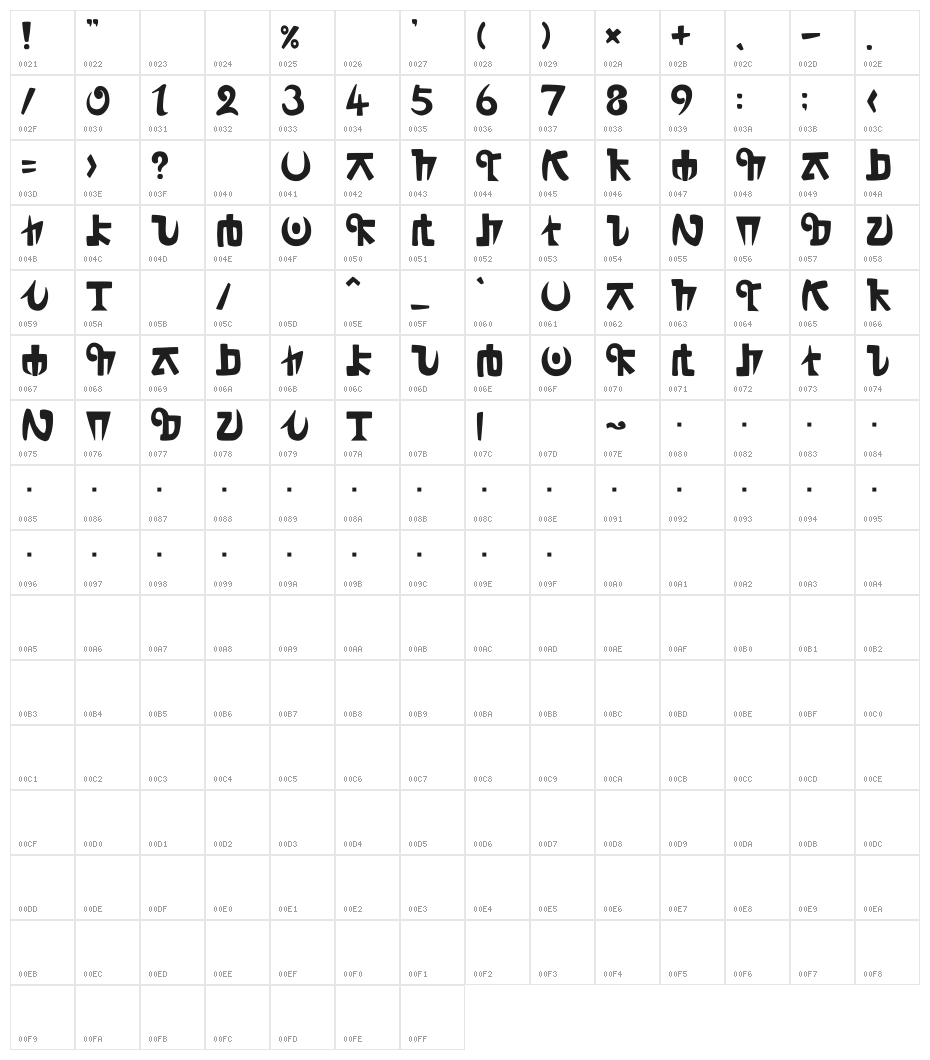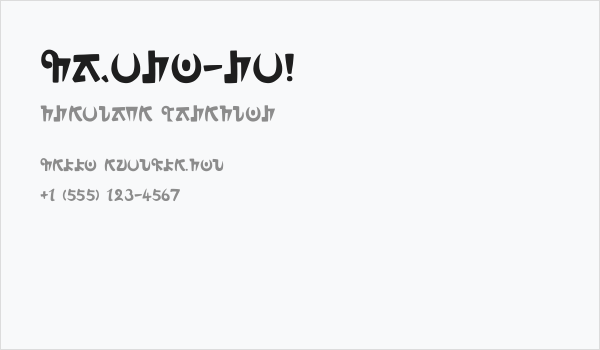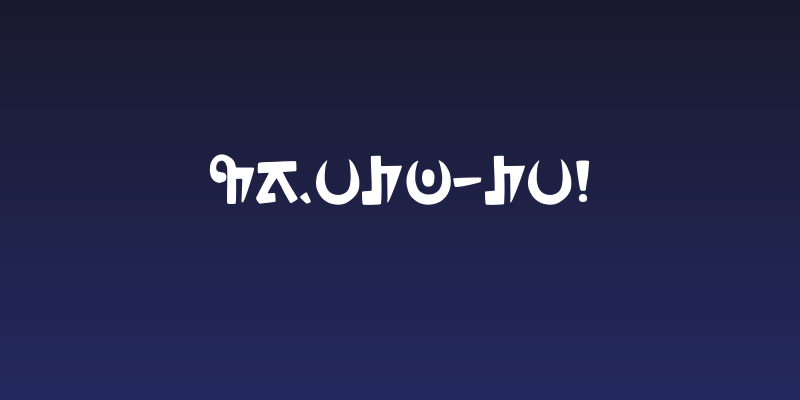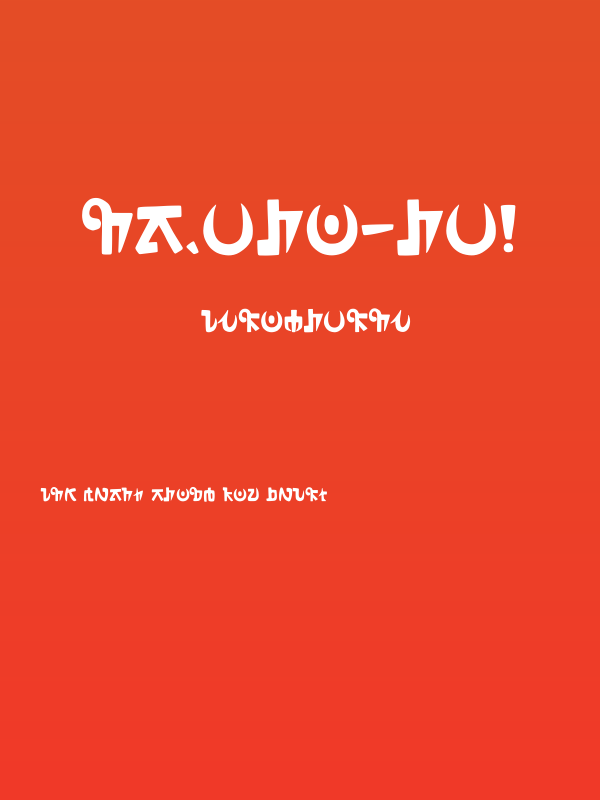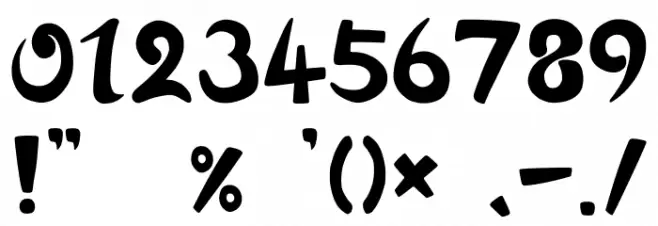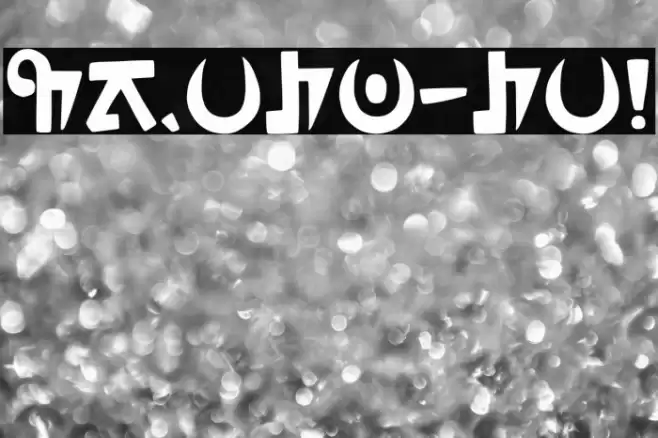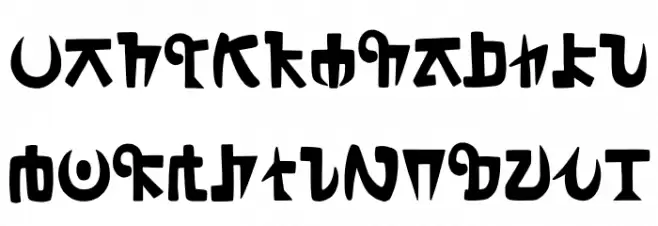
Hi,Aro-ra! Font
Hi,Aro-ra! Description
This font features a bold and playful design with a unique, whimsical style. The characters are rounded and have a slightly irregular, hand-drawn appearance, giving them a lively and dynamic feel. The uppercase and lowercase letters maintain a consistent style, with exaggerated curves and varying stroke thicknesses that add to the font's charm. The numerals and special characters are equally expressive, making this font suitable for creative and informal applications. Its bold presence ensures it stands out, making it ideal for eye-catching designs.
| Overall Style | Playful, Whimsical, Creative |
| Use Case | Headlines, Posters, Creative Designs |
| Proposed Projects | Great for children's books, playful branding, posters, and creative design projects. |